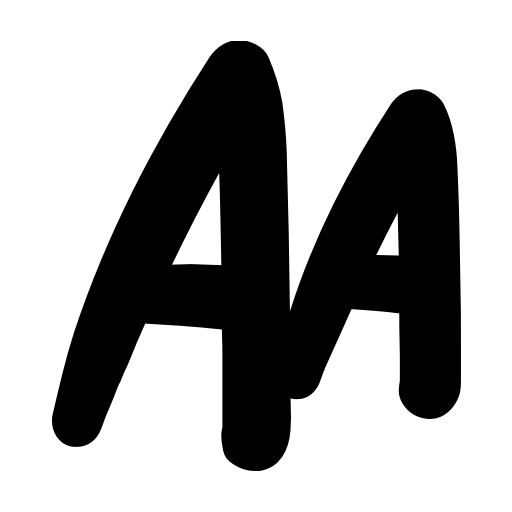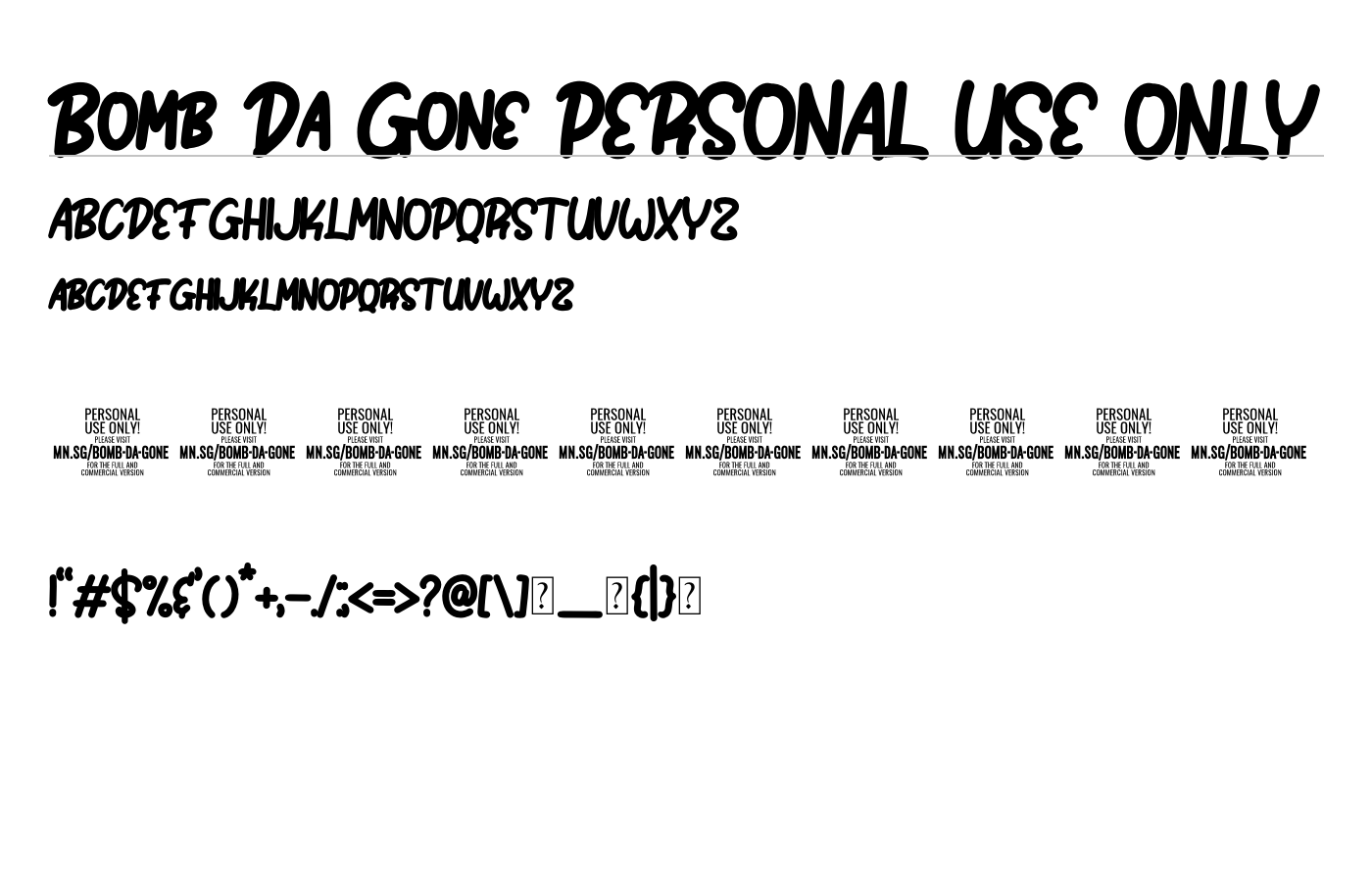
Bomb Da Gone is a bold, playful handwritten font with rounded, thick strokes and an informal, lively feel. Its slightly condensed letterforms and casual brush style make it perfect for fun, youthful designs like posters, social media graphics, and branding that aims to convey energy and personality. This font works best for headlines or display use where a friendly, dynamic vibe is desired.
Bomb Da Gone PERSONAL USE ONLY Font
About Bomb Da Gone PERSONAL USE ONLY Font
| Font family | Bomb Da Gone PERSONAL USE ONLY Font |
| Designer | Prio Nurokhim Aji |